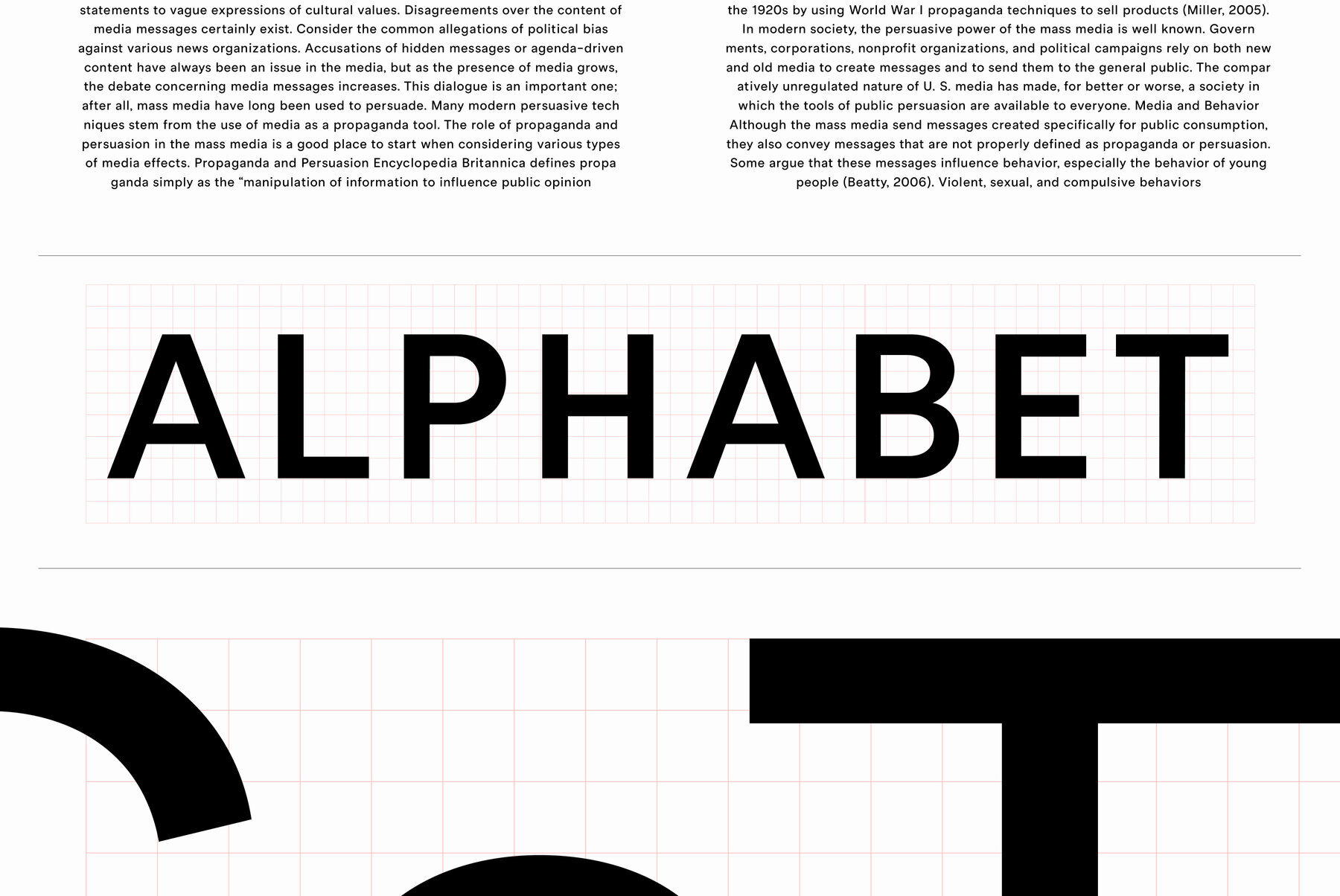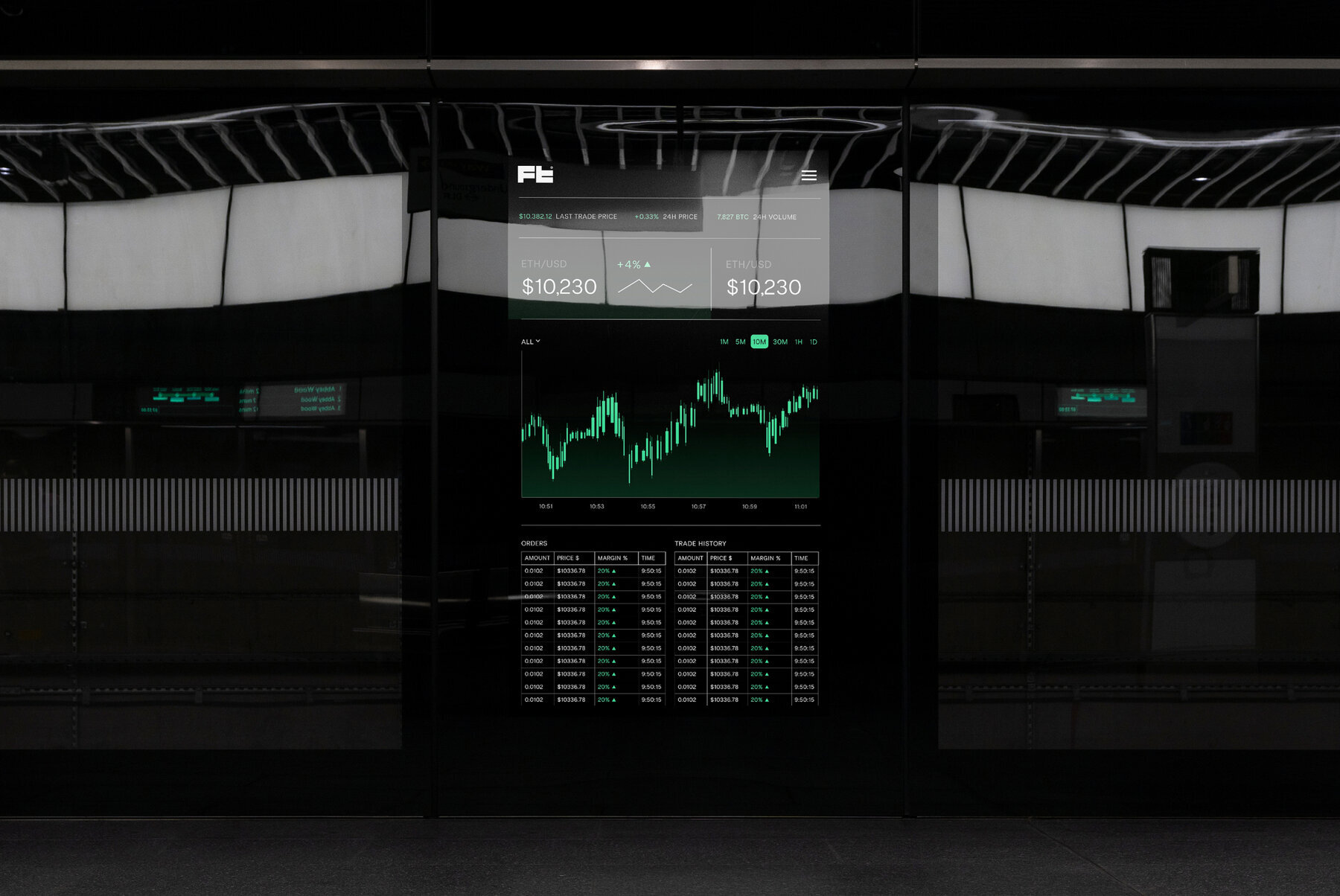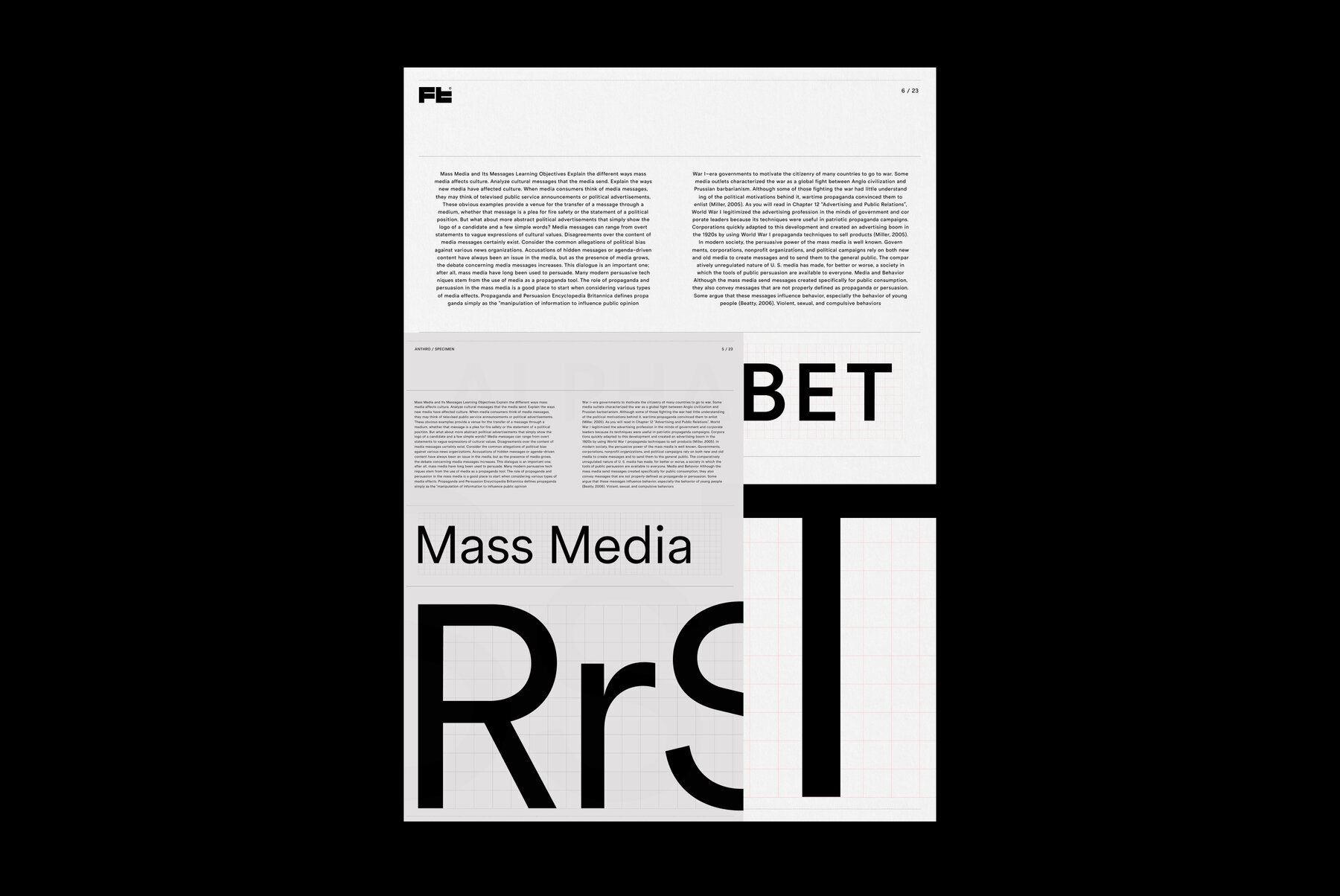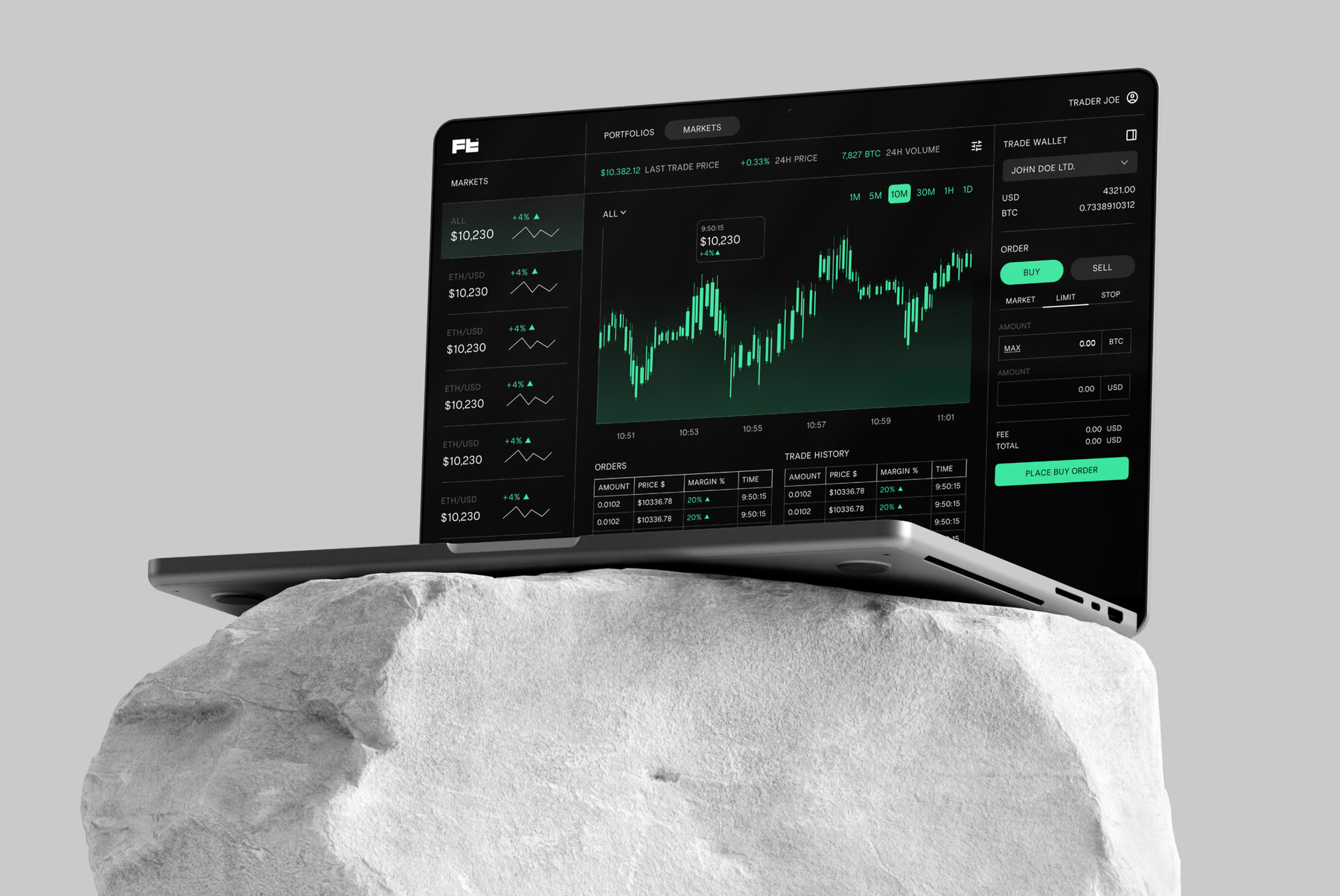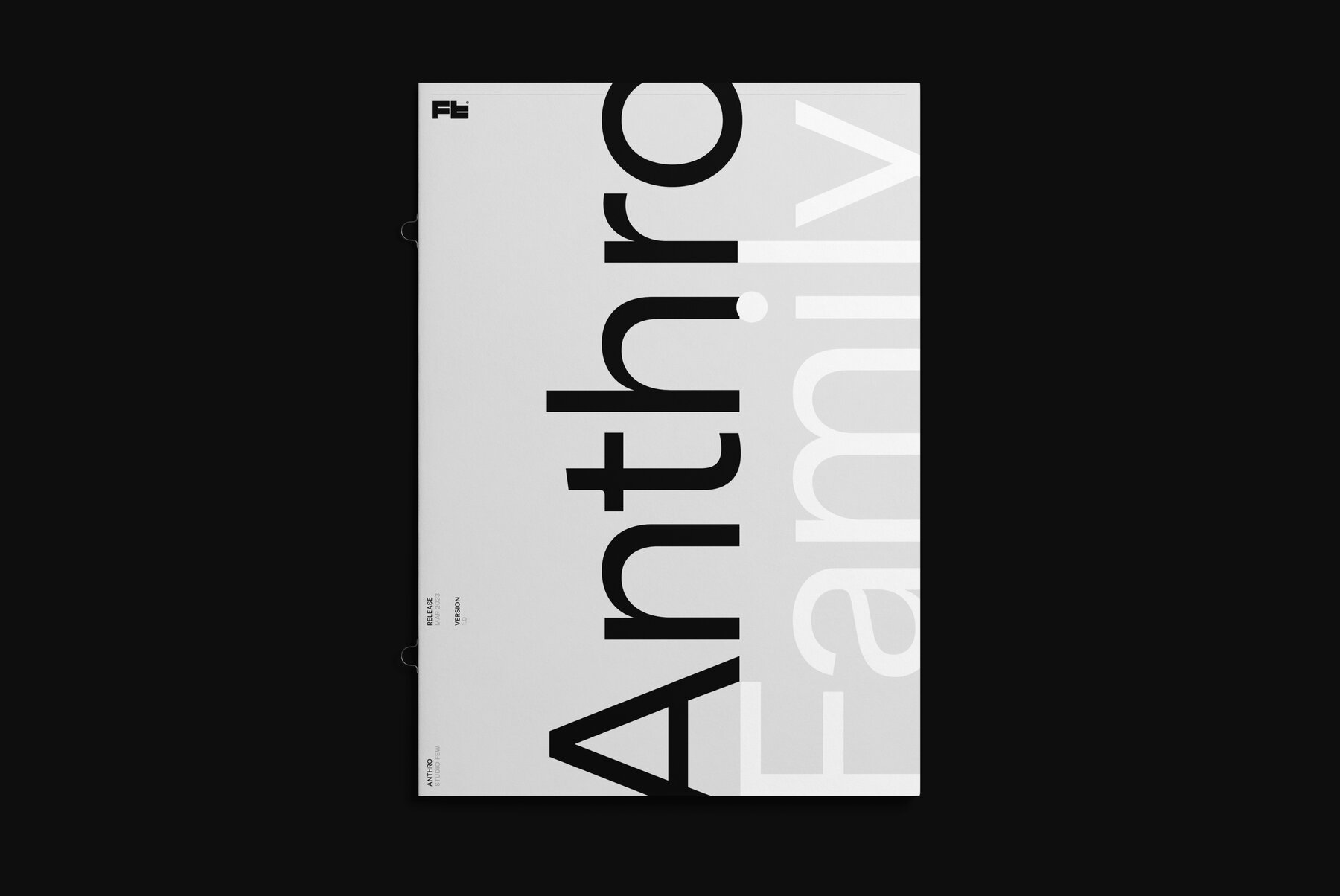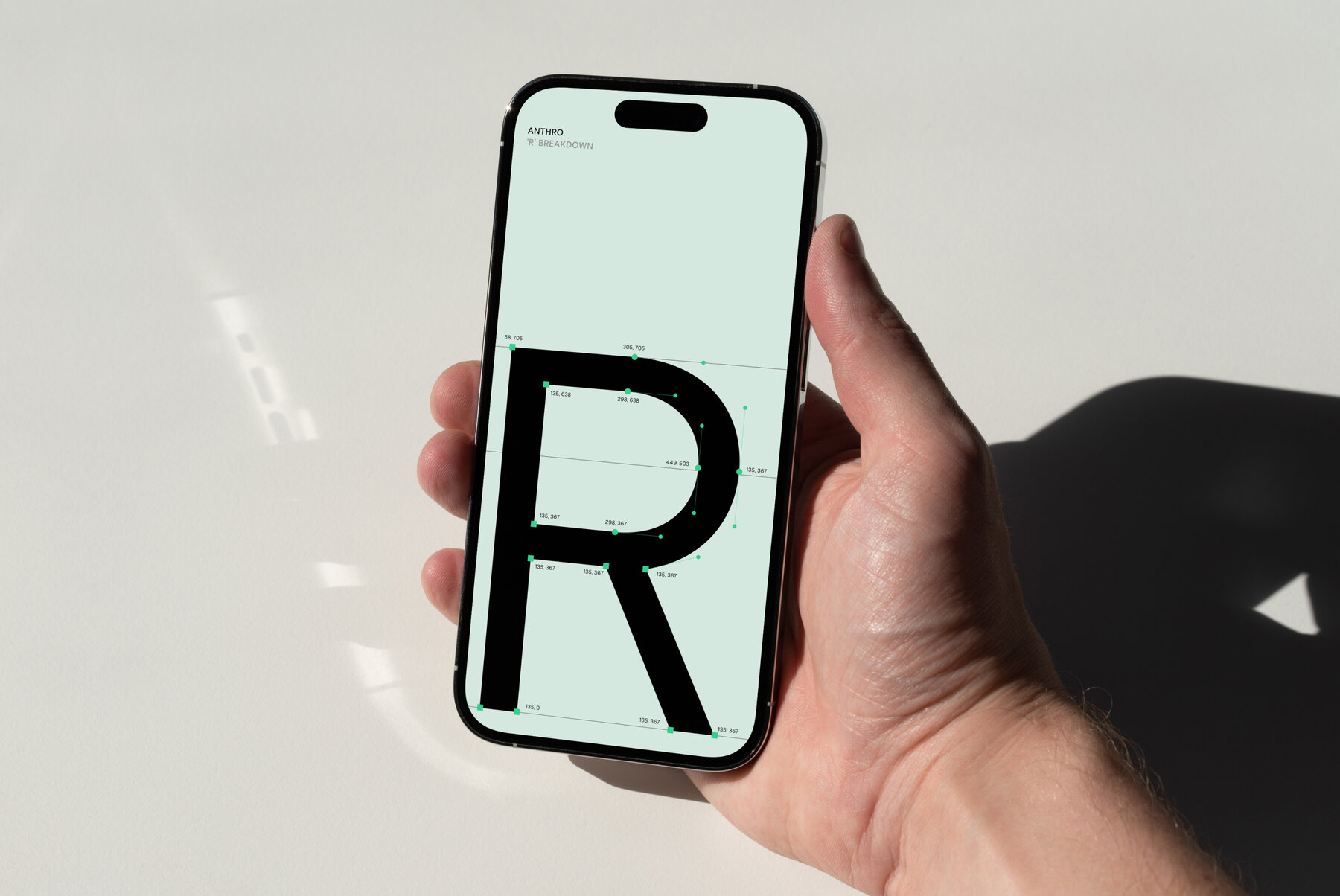
Anthro Font
Discover Anthro, a unique UI font with a tall x-height, angled terminals, and medium contrast, skillfully crafted by Samuel Oakes. This typeface masterfully blends Grotesque and Humanist styles, striking the perfect balance between legibility and personality. As a bonus, every Complete Family purchase comes with a variable font, providing an extensive range of design possibilities.